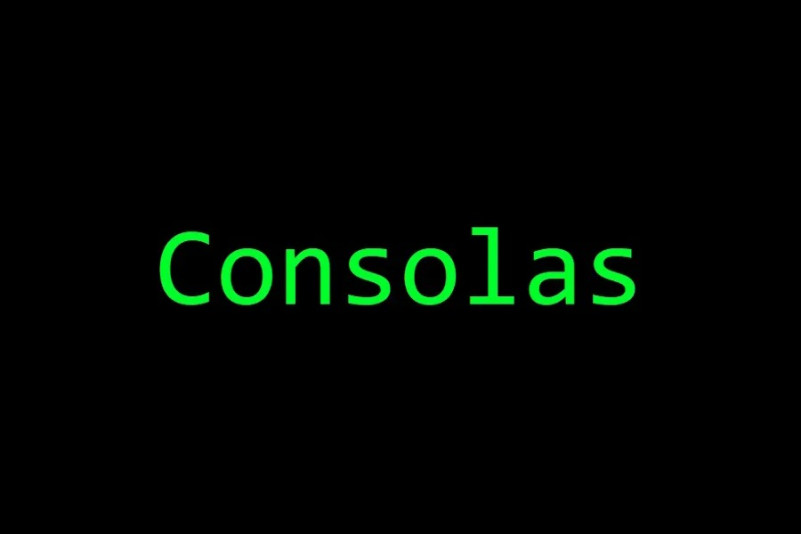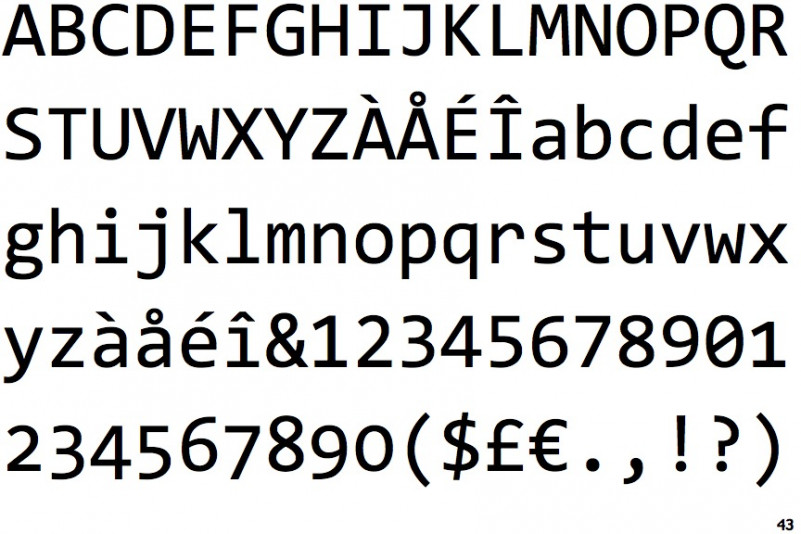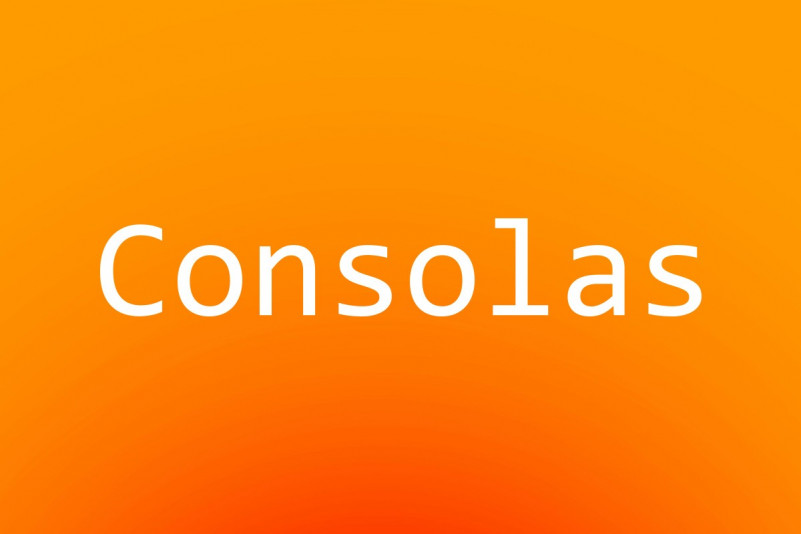
Consolas Font
Consolas Sans Serif Font is a monospaced typeface, designed by Luc(as) de Groot. It is a part of the Clear Type Font Collection, a suite of fonts that take advantage of Microsoft’s Clear Type font rendering technology. It has been included with Windows since Windows Vista, Microsoft Office 2007 and Microsoft Visual Studio 2010, and is available for download from Microsoft. It is the only standard Windows Vista font with a slash through the zero character.
Consolas supports the following Open Type layout features: stylistic alternates, localized forms, uppercase-sensitive forms, oldstyle figures, lining figures, arbitrary fractions, superscript, subscript.